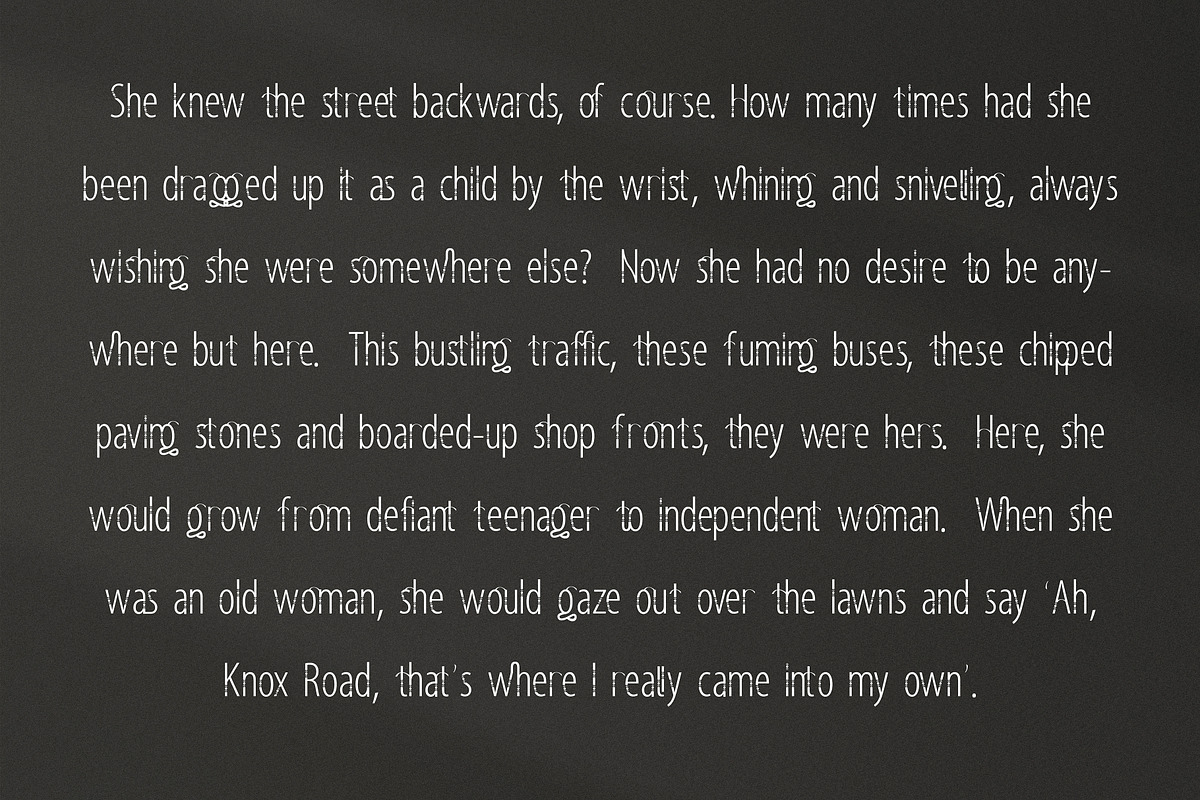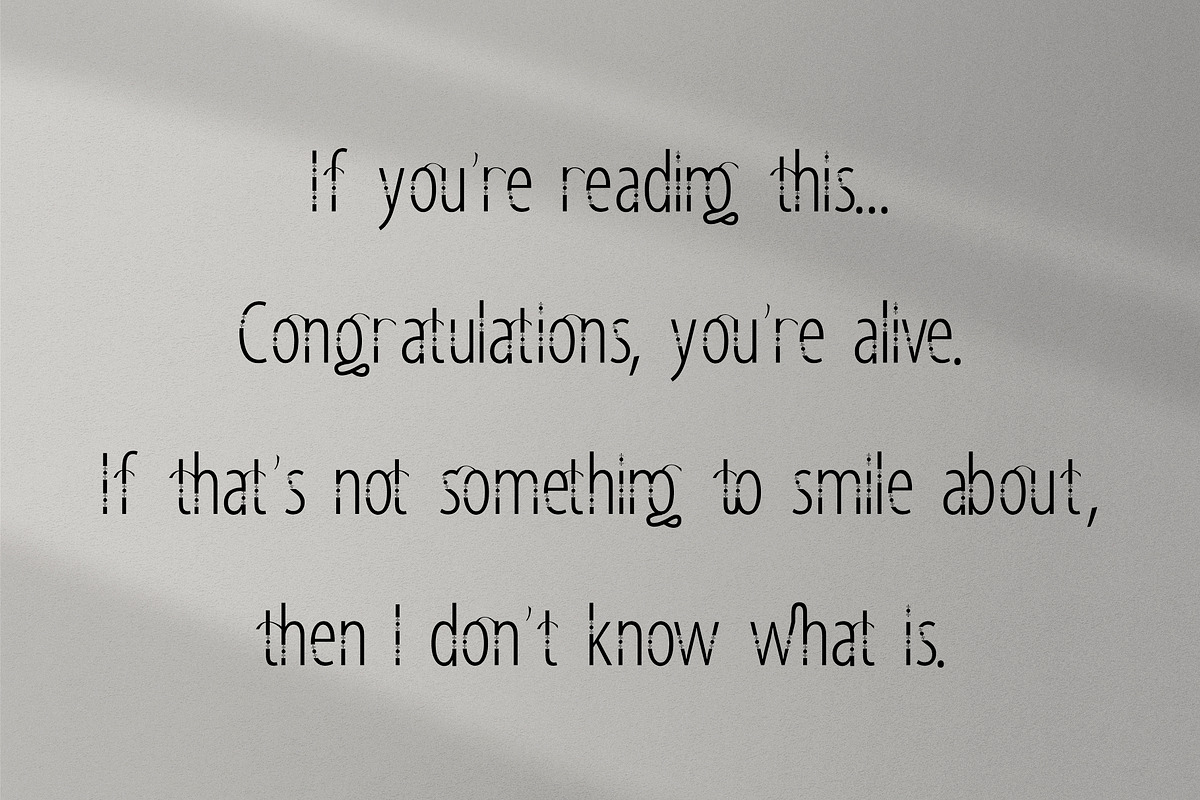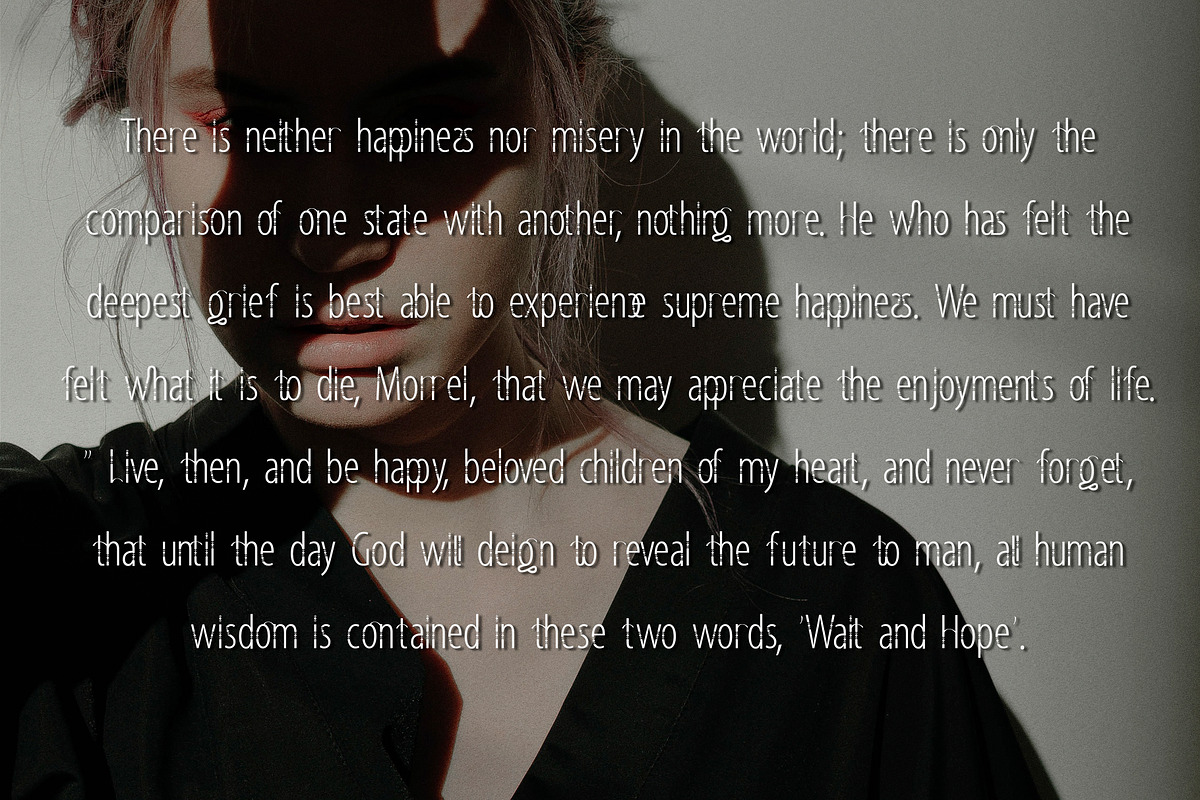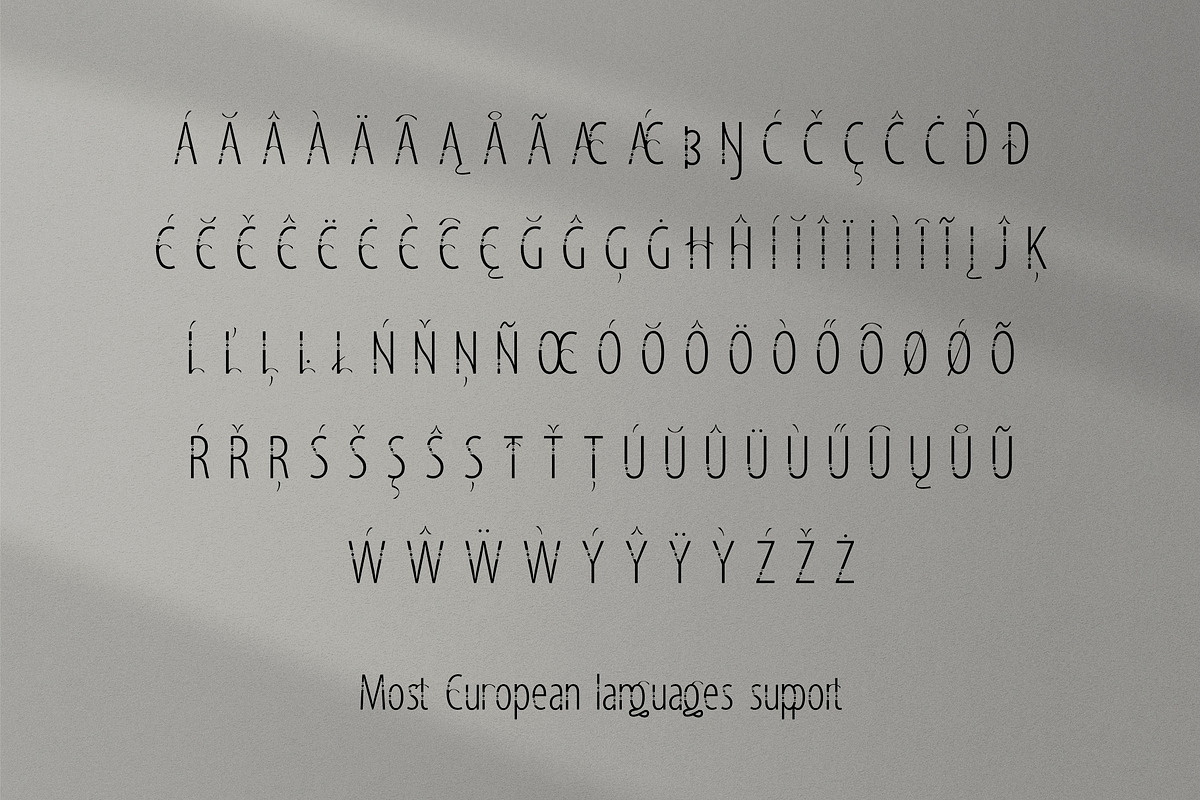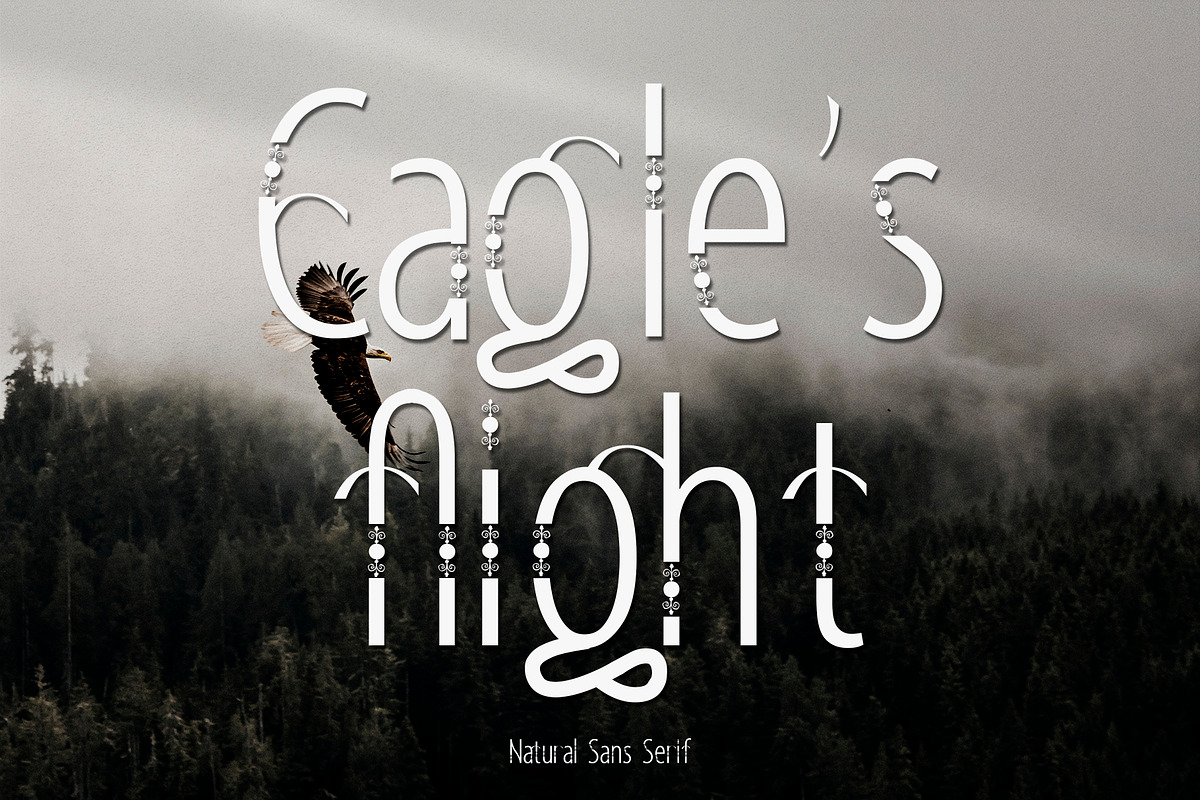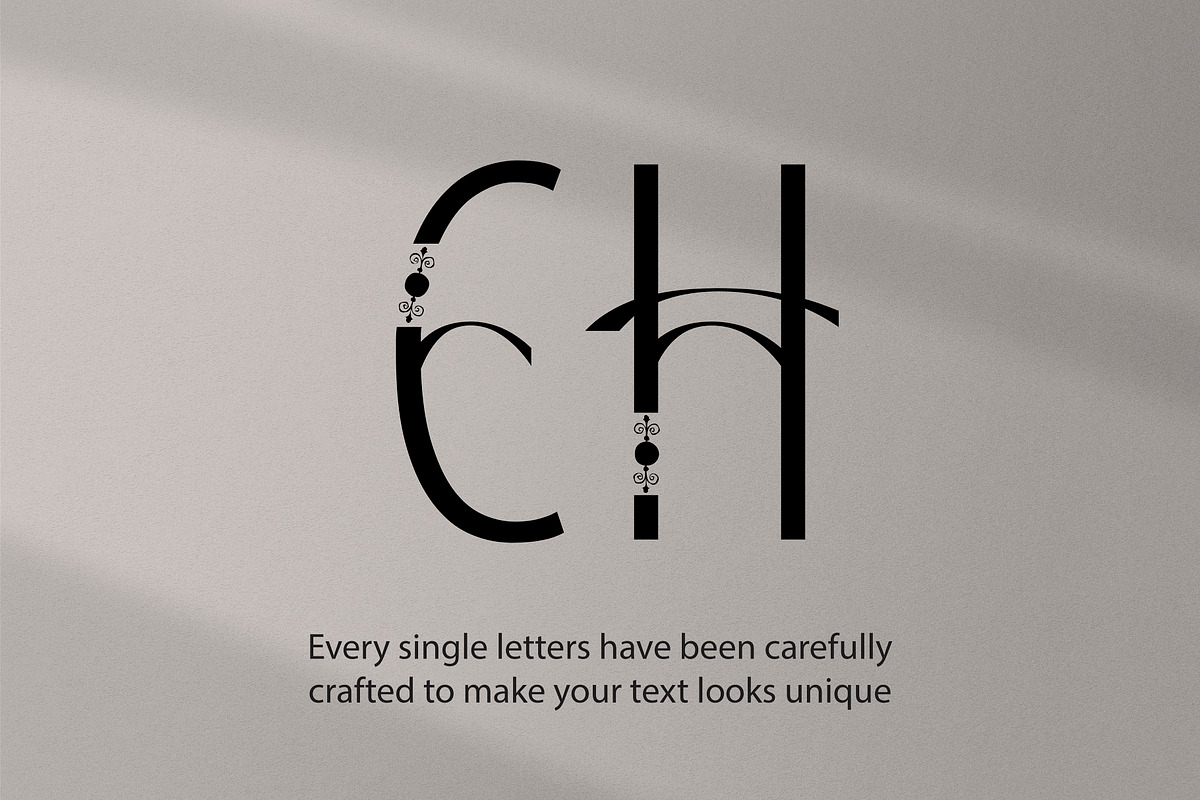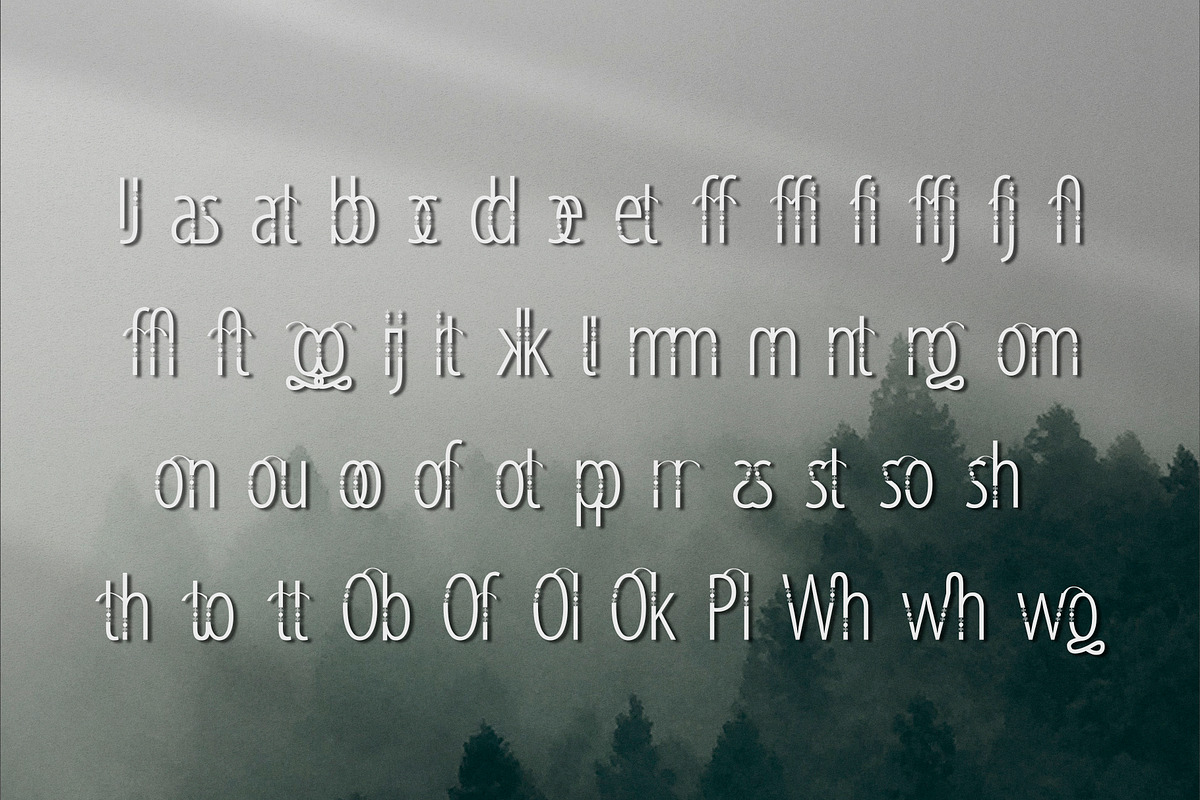
Eagle's Flight | Natural Sans Serif
Looking for the perfect font to make your words soar? Look no further than Eagle's Flight! This modern, delicate sans serif font adds a natural flow to your text, making it look unique and special. Great for logo creating, wedding stationery, packaging, or giving your Instagram and other social media posts a professional touch. Get ready to take your text to the next level with Eagle's Flight!
The font includes:
- Standard punctuation & numerals
- Special letters for most of the European languages
- 50 ligatures (pair combinations, which help the font to look more unique)